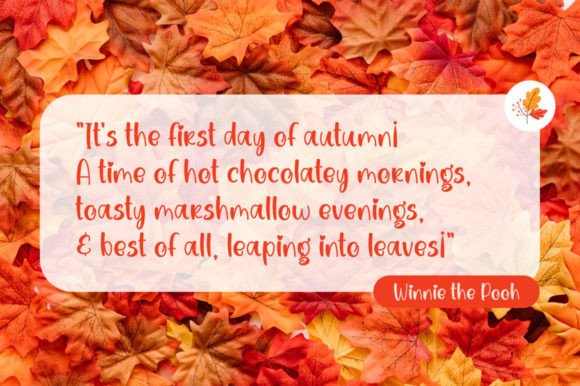
About Autumn Vibes Font
**Autumn Vibes**: *Where Fun Meets Smart Elegance*
Autumn Vibes isn’t just a font; it’s a delightful fusion of fun and smart elegance, thoughtfully designed to add a customized touch to your creative projects. With its playful and stylish characters, this handwritten font effortlessly brings a touch of sophistication to your work, making it ideal for invitations, thank you cards, quotes, greeting cards, logos, business cards, and virtually any design that benefits from a personalized flair.
What sets Autumn Vibes apart is its remarkable ability to seamlessly combine fun with a smart and stylish aesthetic. The font’s artfully crafted characters exude a sense of creativity and authenticity, making it the perfect choice for projects that demand a customized touch. Autumn Vibes is the font that can effortlessly elevate your designs, infusing them with a vibrant and personalized charm.
Autumn Vibes strikes the perfect balance between playful style and smart elegance, making it a versatile and captivating choice for projects that require both creativity and sophistication.
In branding and logos, Autumn Vibes adds a unique sense of character and style, setting your brand apart and making it memorable. It possesses the power to convey a brand’s creativity and values, resonating effectively with its target audience.
For invitations and greeting cards, the font’s stylish characters enhance the emotional impact of your message, making it more heartfelt and memorable. Whether you’re working on print materials, social media graphics, or any other visual content, Autumn Vibes brings an air of creativity and authenticity to your projects.
One of Autumn Vibes’ most remarkable qualities is its adaptability. It can transition seamlessly from a formal and polished tone to a more relaxed and friendly one, making it suitable for a wide range of creative applications. Its ability to evoke both fun and smart elegance ensures that it remains a cherished choice for designers and creators across diverse industries.
In summary, Autumn Vibes is more than just a font; it’s a design asset that skillfully combines fun with smart elegance. Its unique blend of playful characters and creative charm positions it as an indispensable tool for anyone seeking to add a touch of personality and sophistication to their visual communication. Embrace the fun and smart elegance of Autumn Vibes, and watch your designs come alive with vibrant and personalized appeal.